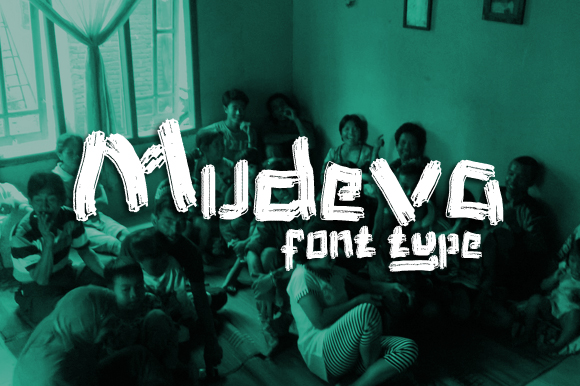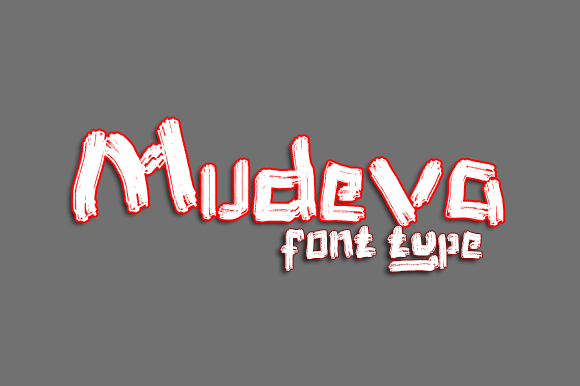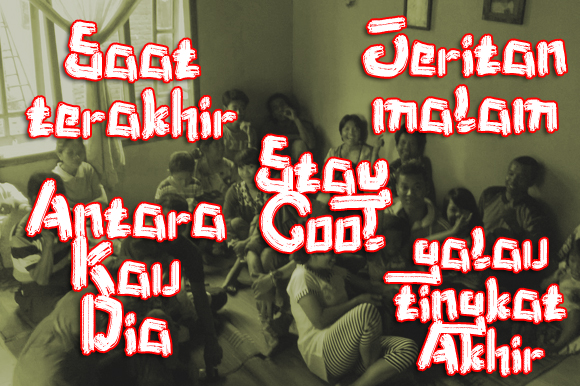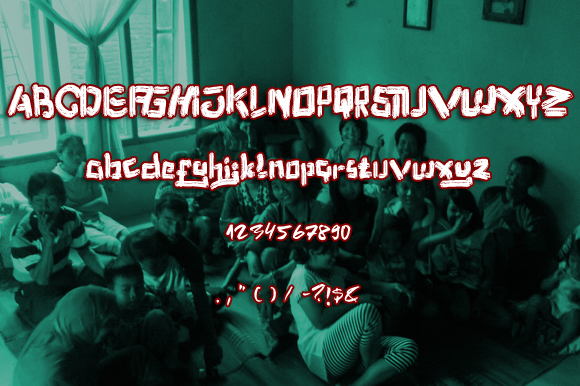
HomeScript FontsMudeva Font Script Fonts Mudeva Font FacebookTwitterPinterestWhatsApp Mudeva Font Poster 2 Mudeva Font Poster 3 Mudeva Font Poster 4 About Mudeva Font Mudeva, a rough brush font. DOWNLOAD NOW 111 0 People also explored Norfolk Galaxie Hello Love Font Back to School Font Mindlight Font Abyaz Font Teratai Font Alleyn Blushful Font Spooky Witchy Font Supermoon Font Honey Bunny Font TagsMudeva Font Previous articlePenasaran FontNext articleJeuliteung Font LEAVE A REPLY Cancel reply Comment: Please enter your comment! Name:* Please enter your name here Email:* You have entered an incorrect email address! Please enter your email address here Website: Save my name, email, and website in this browser for the next time I comment. Unlock Endless Creativity with the FREE September Clipart Huge Bundle (Valued at $700!) Personal Use Free Lixdu Personal Use Free Read more Hommy You Personal Use Free Read more Valentines Day Personal Use Free Read more Tide Personal Use Free Read more BLOG Using Fonts in Digital Marketing: Tips to Strengthen Your Brand Identity In the realm of digital marketing, every visual element plays a crucial role in shaping a brand's identity, and fonts are no exception. The... Transform Your Website: Elevate Your Typography with 7 Best Web Font Generators Where to Buy American Fonts Online in 2024 To increase your work productivity, choose the most readable fonts.